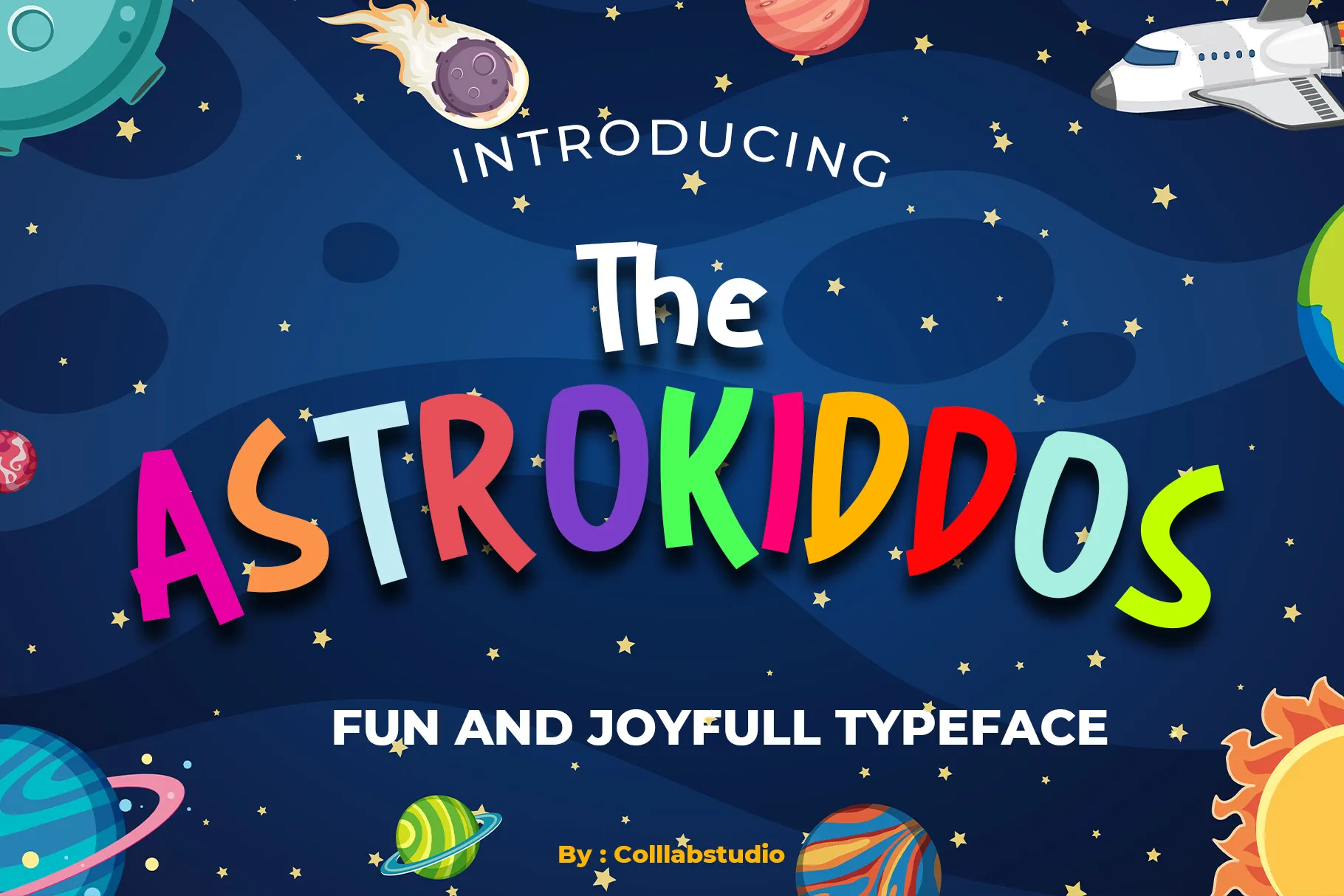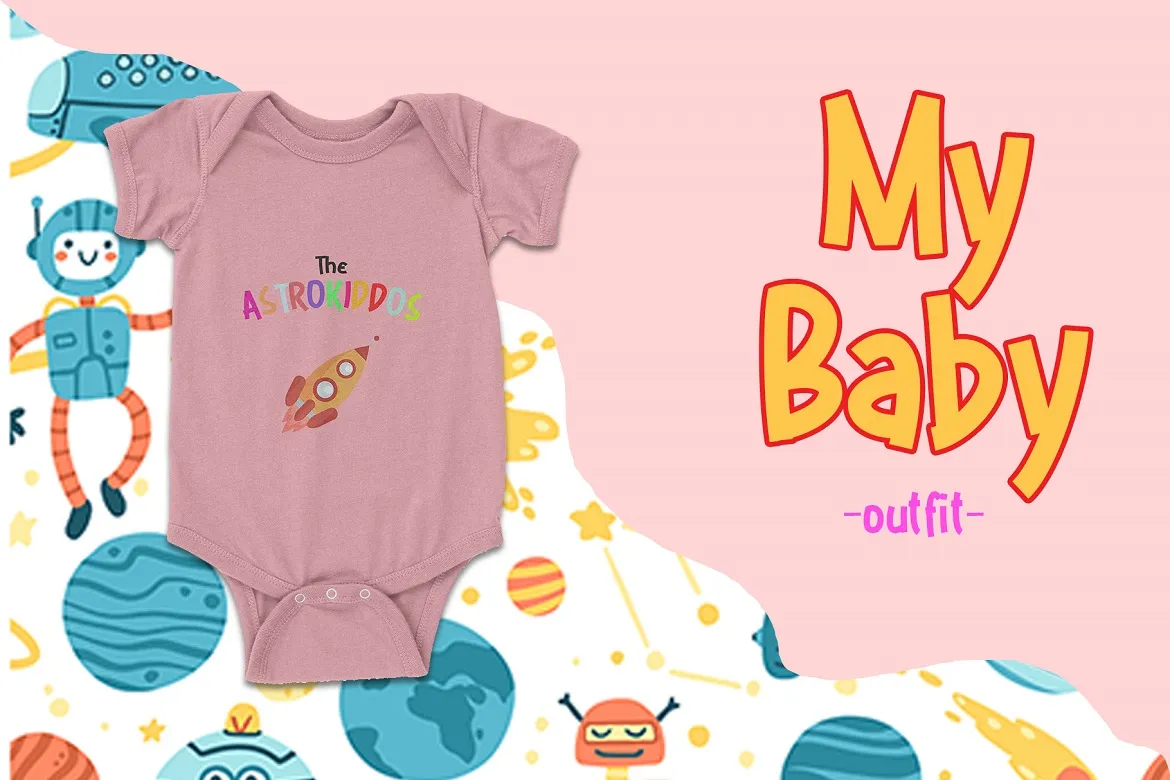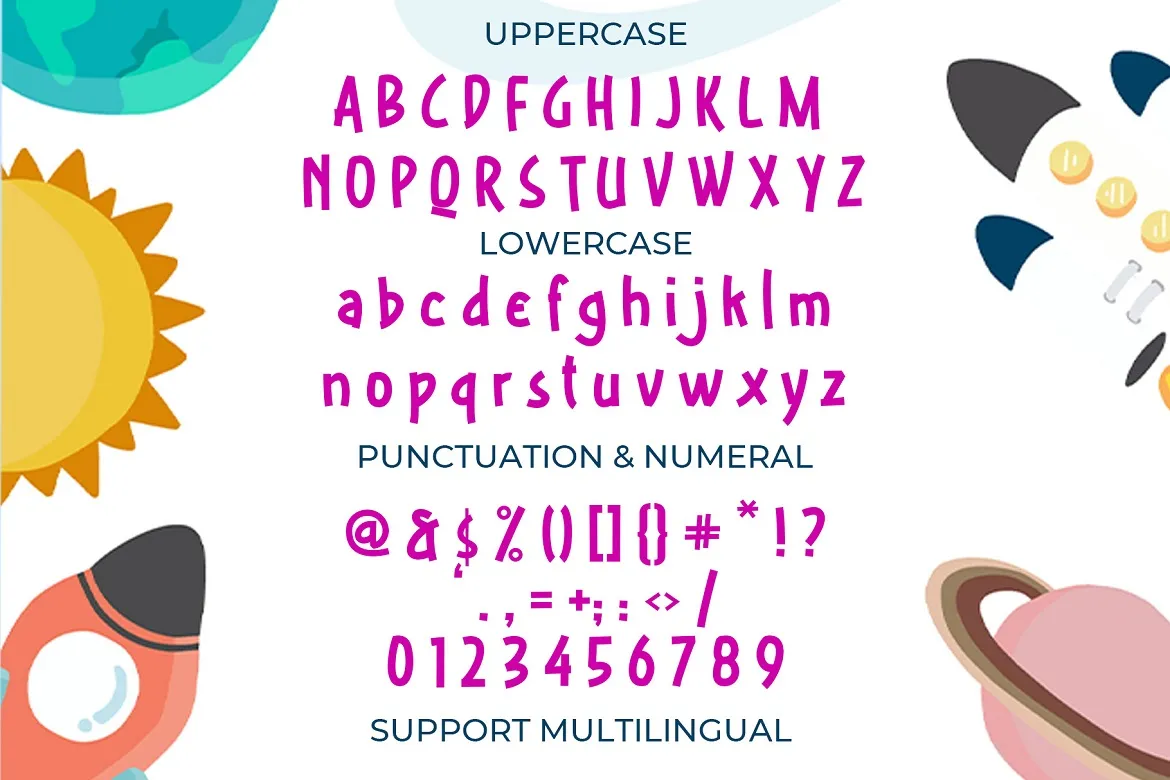
The Astrokiddos is a fun and joyful typeface designed to spark imagination and creativity. With its bold, colorful, and playful letterforms, this font instantly brings energy and excitement to any design project. Perfect for kids-themed designs, outer-space adventures, or anything that needs a burst of personality, The Astrokiddos is your go-to font for fun.
Ideal for posters, logos, merchandise, social media content, product packaging, and playful branding, this typeface ensures your projects stand out with a cheerful and modern vibe. Its versatility makes it suitable for both digital and print, while its space-inspired style adds a unique, adventurous touch.
Full uppercase + lowercase characters
Numbers & punctuation included
Multilingual support (Western European languages)
Logos & branding projects
Website design & creative accents
Kids’ products, educational materials, & merchandise
Posters, flyers, and magazines
Social media quote graphics & content creation
The Astrokiddos was inspired by the boundless imagination of children and the wonders of outer space. Its playful strokes and colorful vibe mirror the curiosity and excitement of exploring the universe, making it the perfect font for brands and creators who want to capture a sense of adventure and joy.
The Astrokiddos is a fun and joyful typeface designed to spark imagination and creativity. With its bold, colorful, and playful letterforms, this font instantly brings energy and excitement to any design project. Perfect for kids-themed designs, outer-space adventures, or anything that needs a burst of personality, The Astrokiddos is your go-to font for fun.
Ideal for posters, logos, merchandise, social media content, product packaging, and playful branding, this typeface ensures your projects stand out with a cheerful and modern vibe. Its versatility makes it suitable for both digital and print, while its space-inspired style adds a unique, adventurous touch.